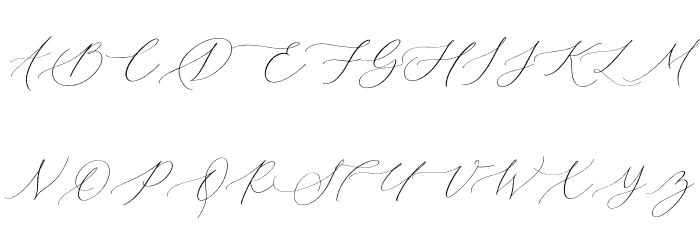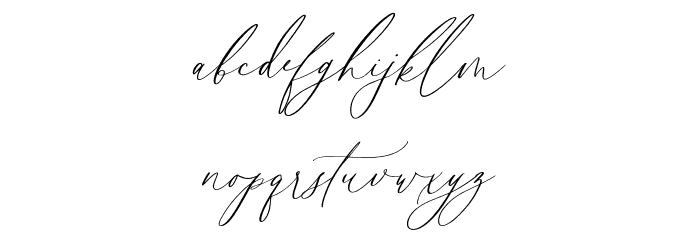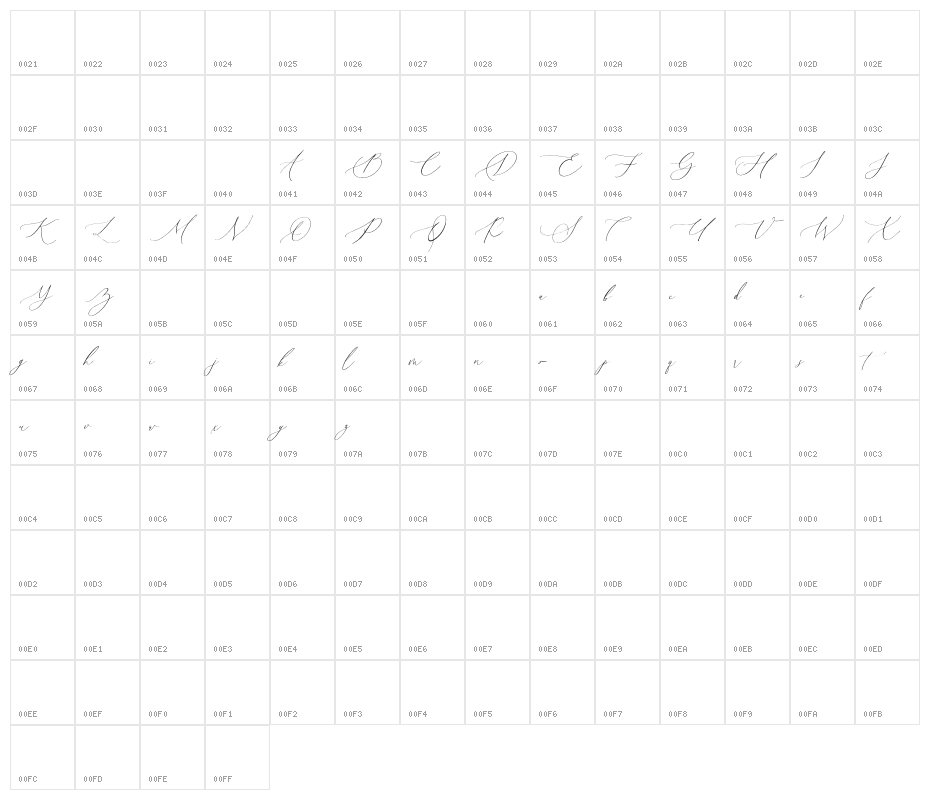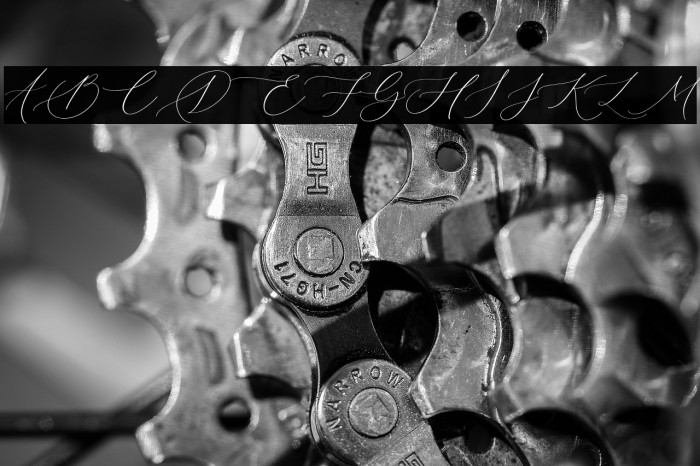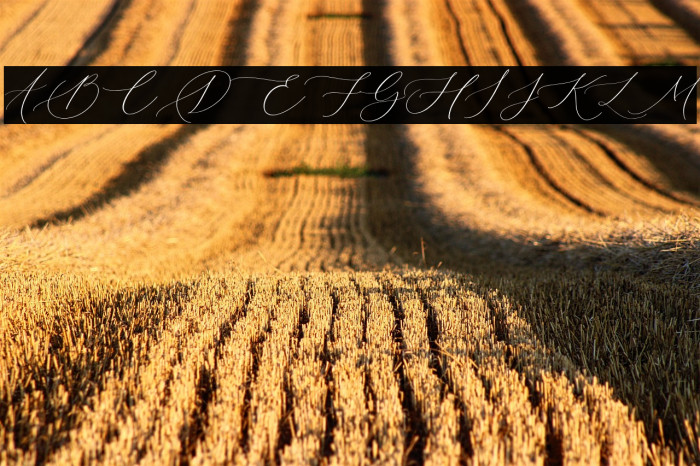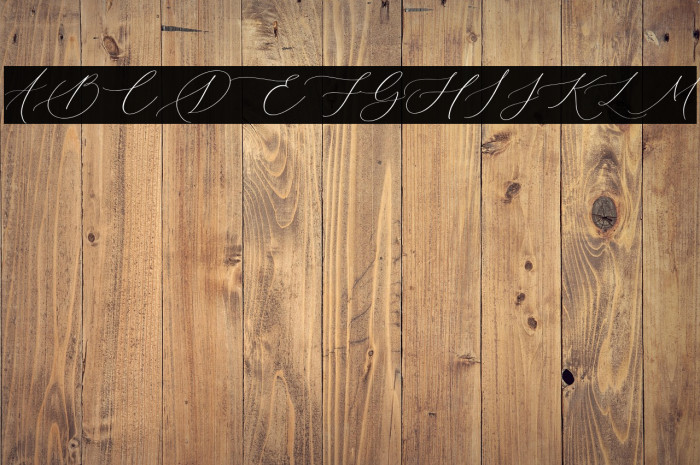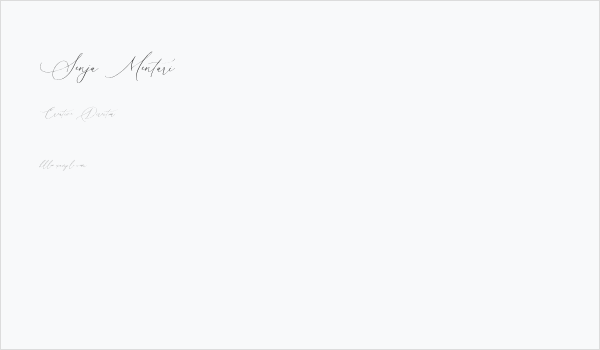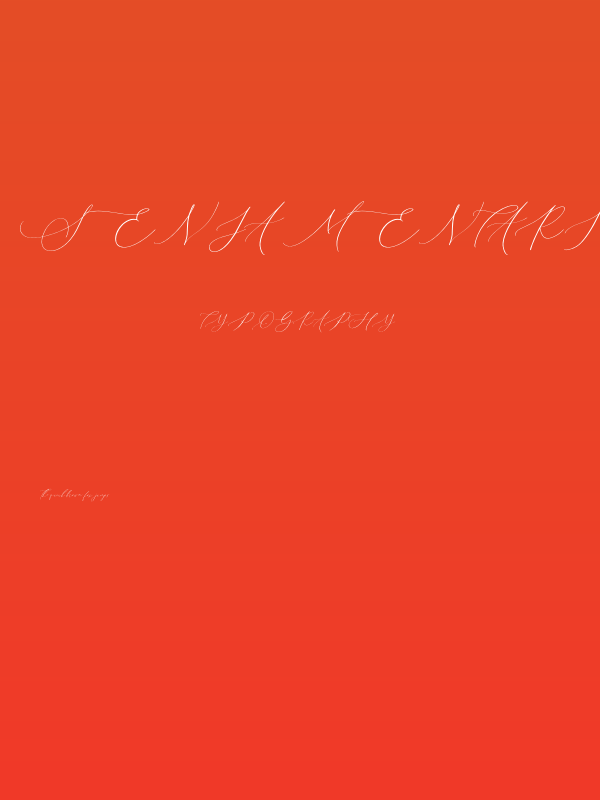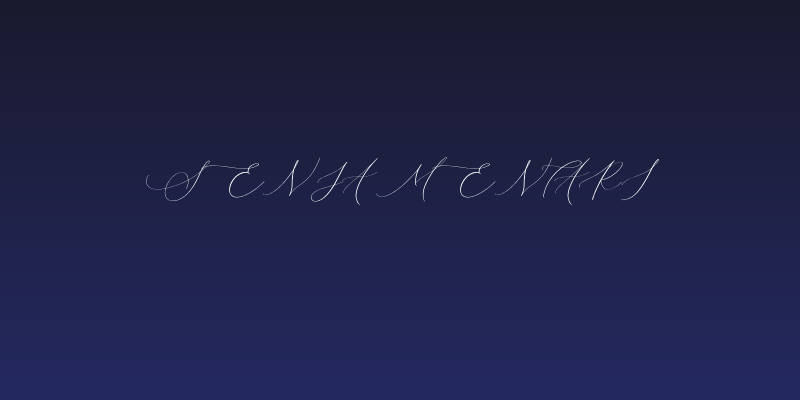
Senja Mentari Font
This elegant script font features a delicate and flowing design, characterized by its graceful curves and thin strokes. The letters are interconnected, creating a seamless and fluid appearance. The uppercase letters are slightly more elaborate, with extended flourishes that add a touch of sophistication. The lowercase letters maintain a consistent style, enhancing readability while preserving the font's artistic flair. This font exudes a sense of elegance and refinement, making it ideal for formal invitations, branding, and decorative purposes.
A graceful and flowing script font with elegant curves and thin strokes.
- Font: Senja Mentari
- Proposed Projects: Ideal for wedding invitations, luxury branding, greeting cards, and elegant stationery.
- Category: Script
- Weight: Light
- Overall Style: Elegant
- Use Case: Logos, Invitations, Decorative text